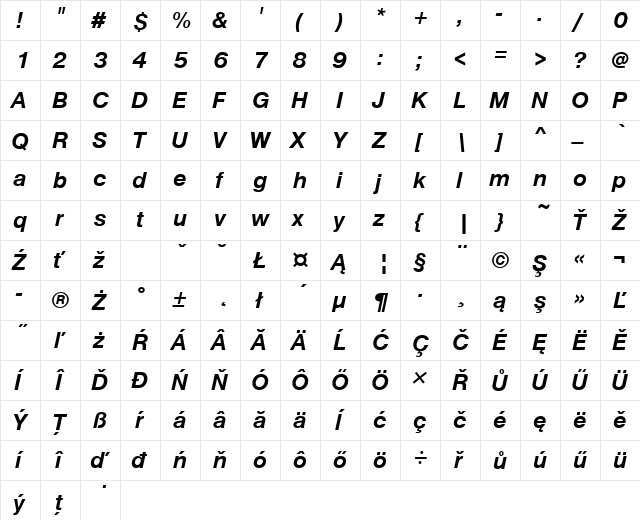
NimbusSanDEE Bold Italic
Design Context for NimbusSanDEE Typeface
NimbusSanDEE is a composed and adaptable typeface that performs quietly and consistently across a wide range of design contexts. The dynamic lean of this cut emphasises speed and emphasis in any layout. The heavy weight commands attention and anchors typographic hierarchies.